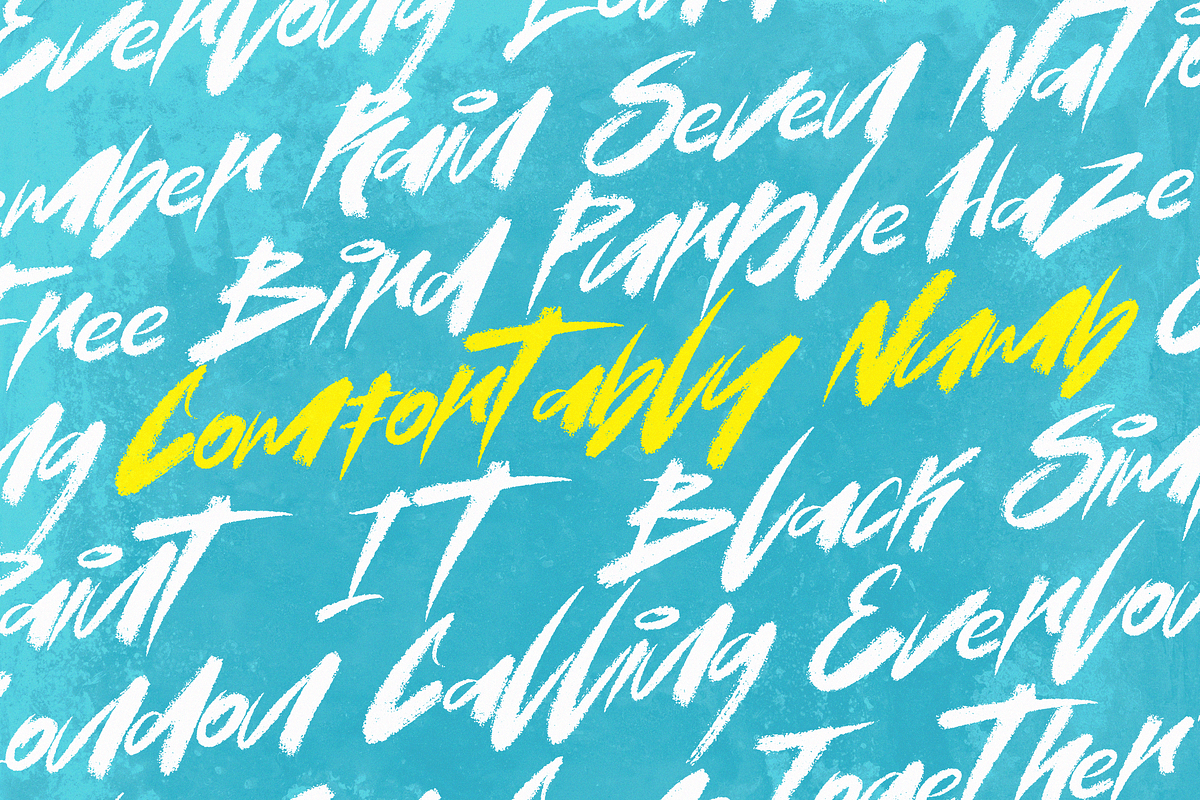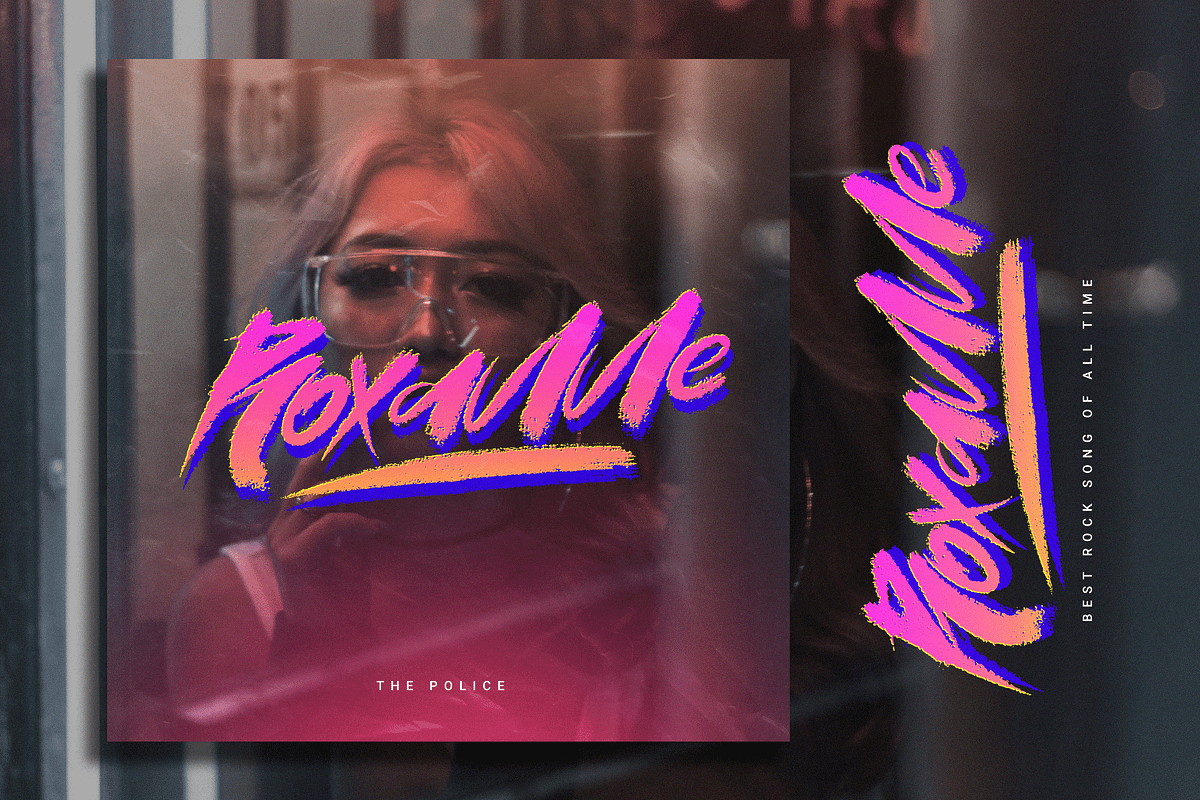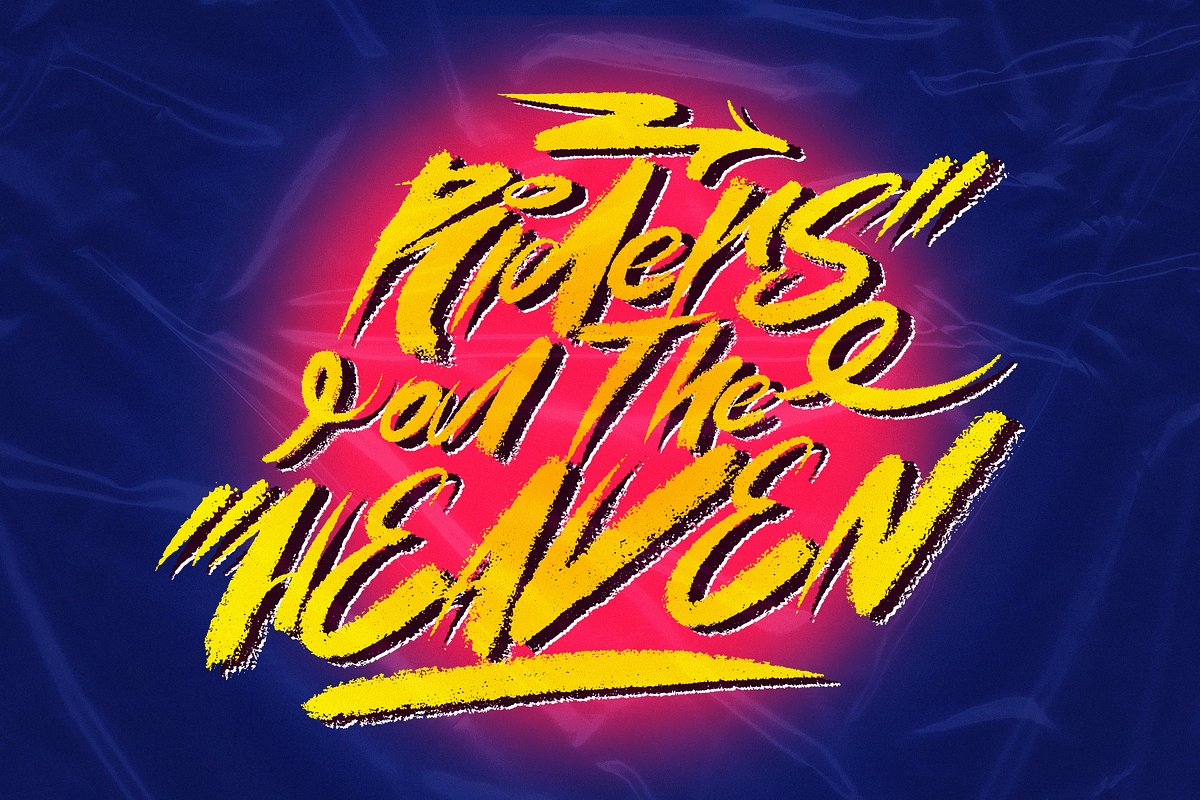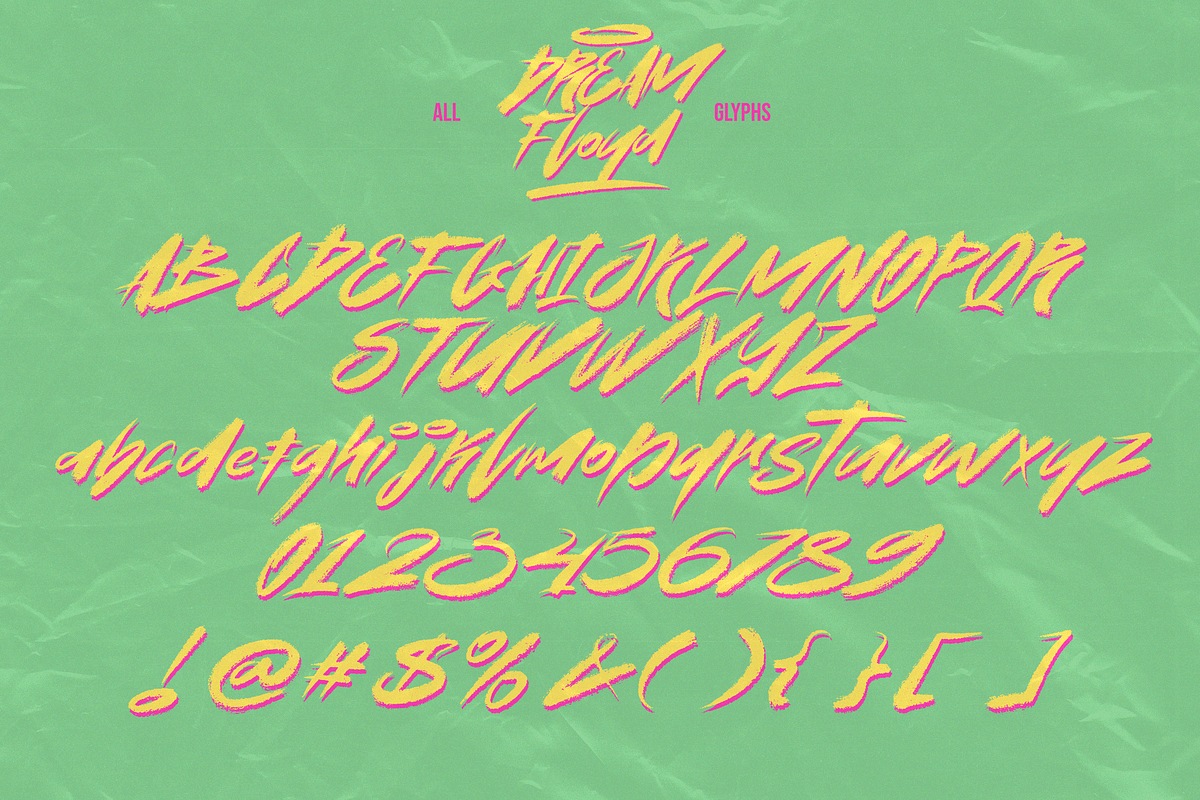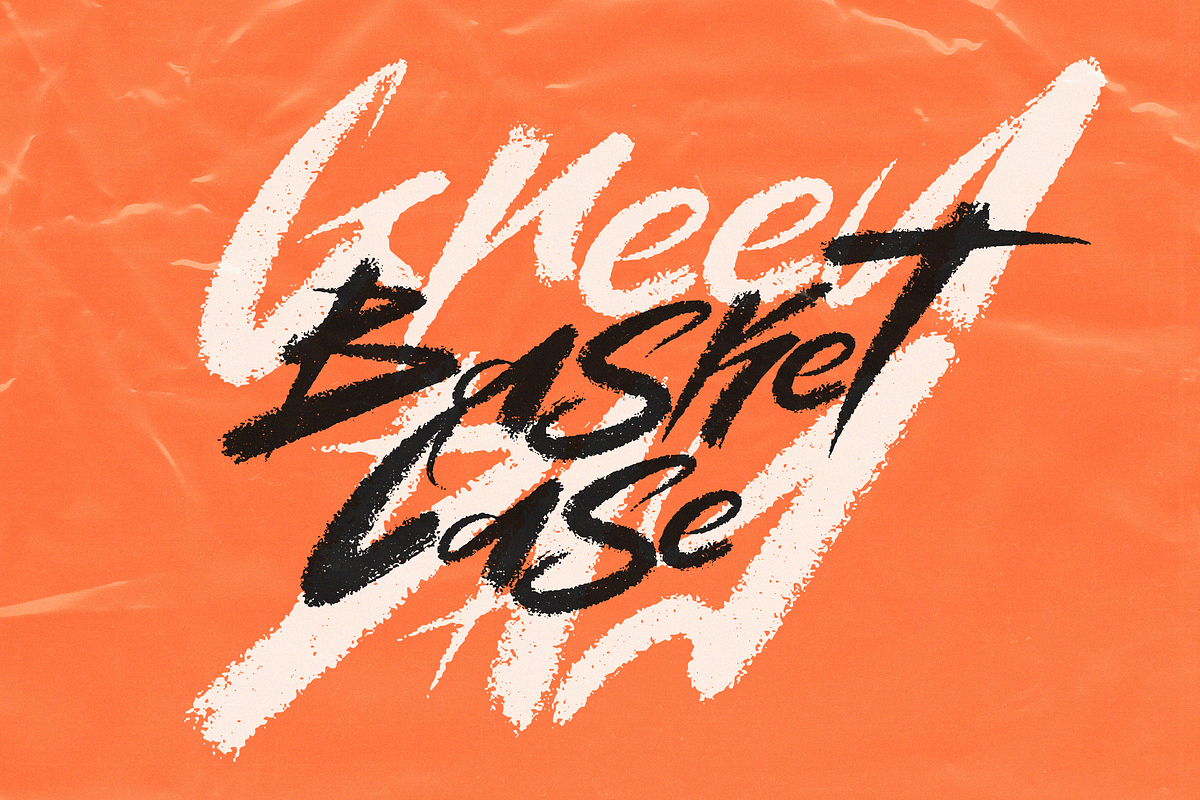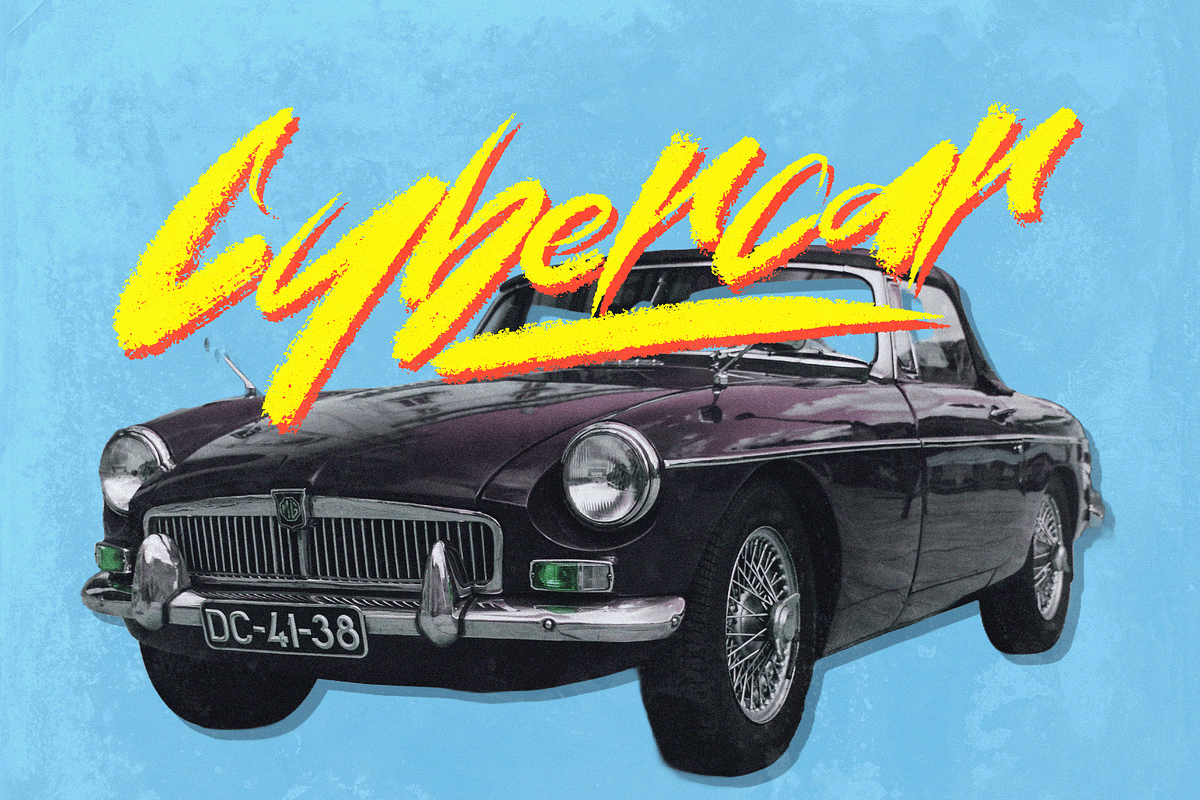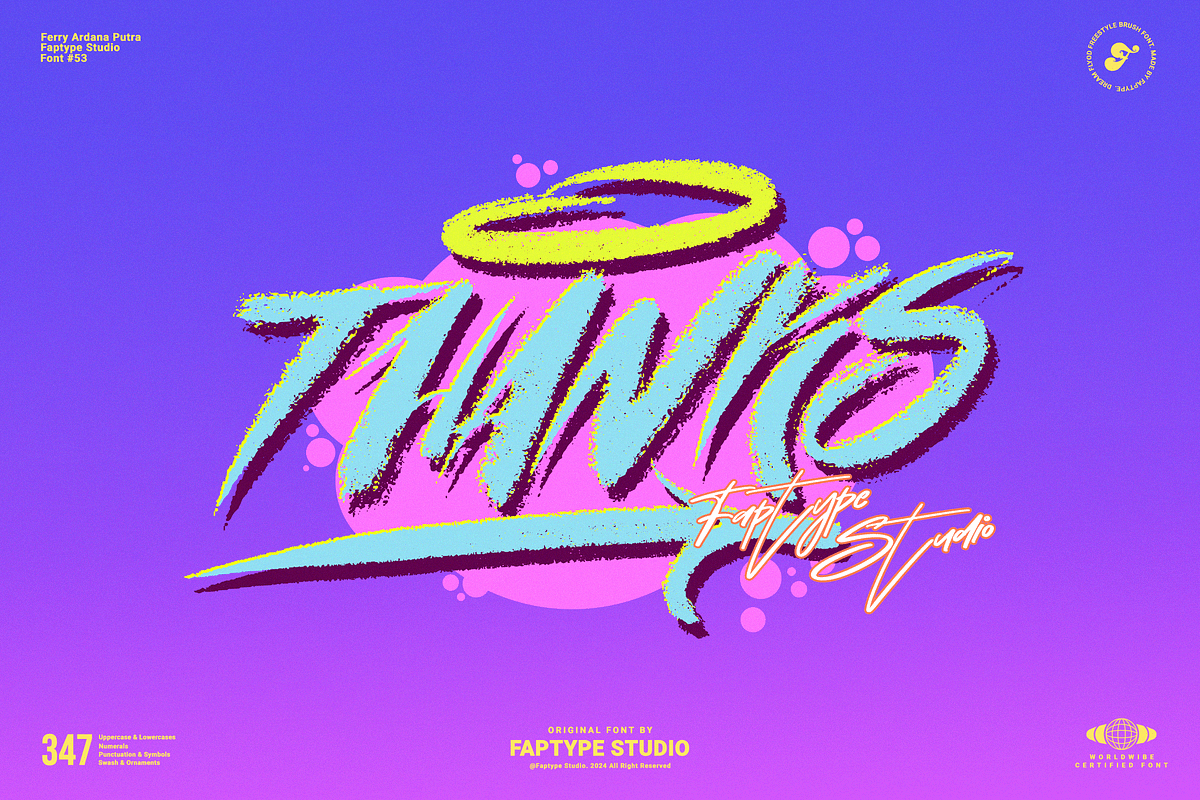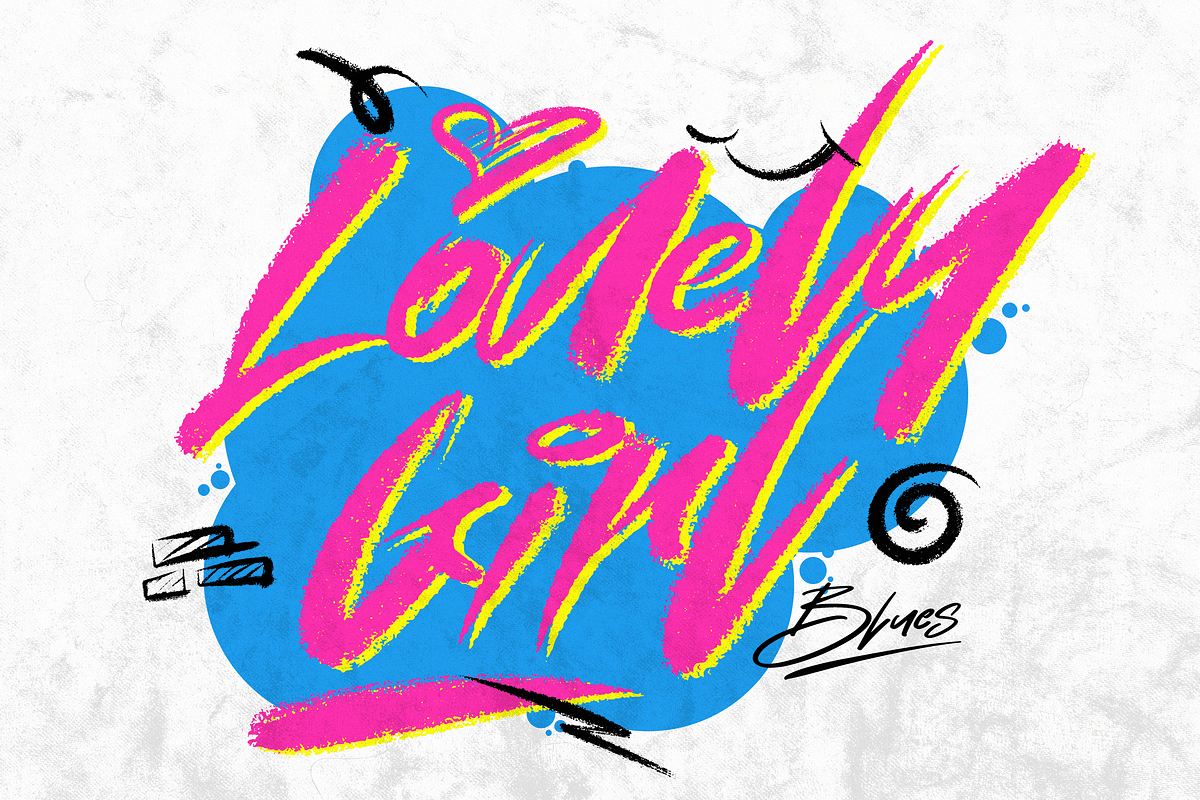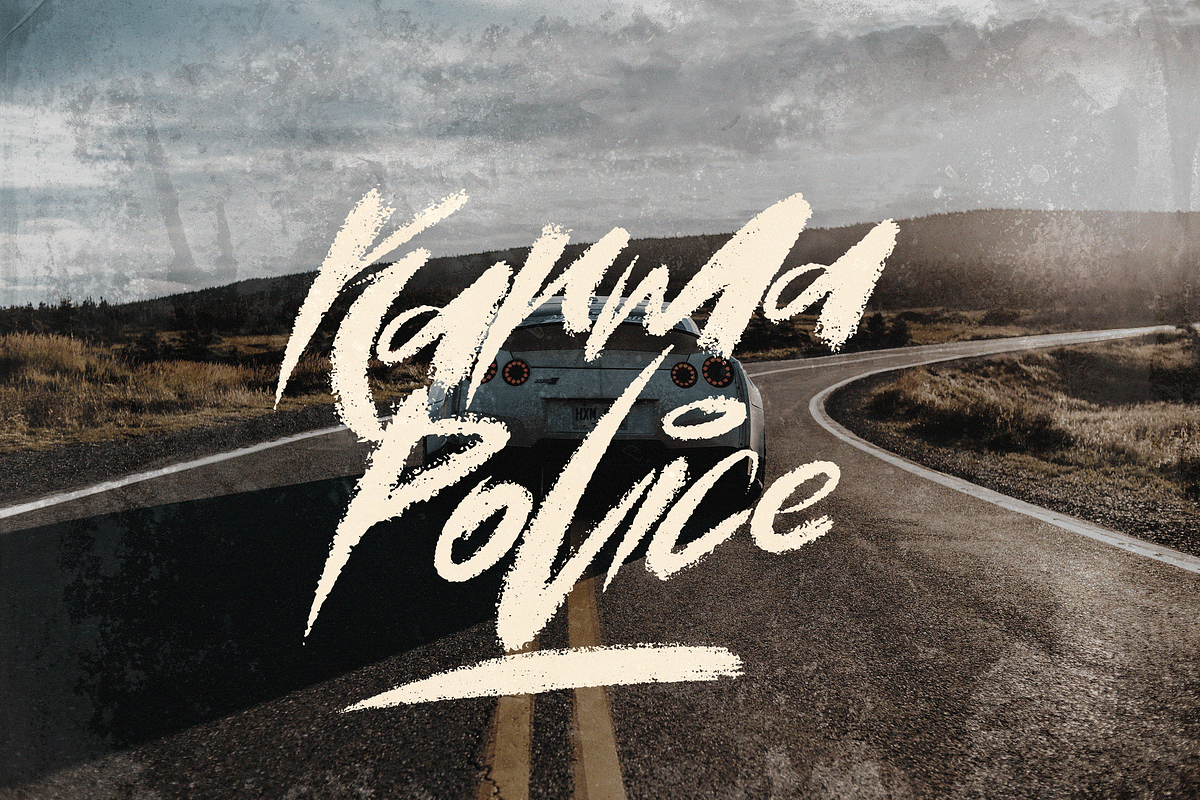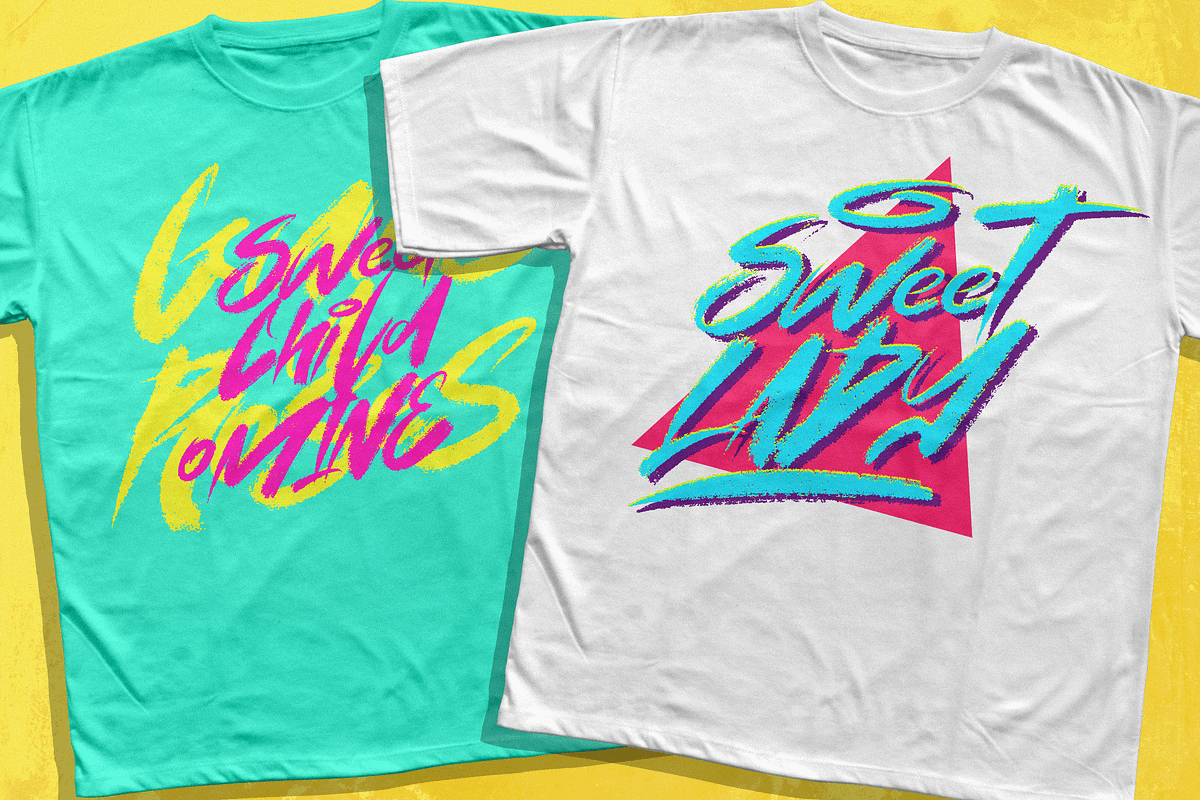
Dream Floyd | Retro Brush Font
Introducing Dream Floyd, a captivating retro brush font that brings the spirit of vintage design into modern creative projects. With its bold, expressive strokes and nostalgic charm, Dream Floyd evokes the artistic flair of the past, while offering a versatile and dynamic look for today's designs. Perfect for creating standout logos, eye-catching posters, packaging, and unique branding, this font merges retro aesthetics with a fresh, energetic feel.
Dream Floyd is ideal for those looking to add a distinctive, handcrafted touch to their work, with its textured brush style delivering authenticity and character. Whether you're working on a creative campaign or a personal project, Dream Floyd provides the visual impact needed to make your designs unforgettable. Elevate your projects with the timeless appeal of Dream Floyd—where retro meets contemporary creativity.
Dream Floyd:
- A full set of upper & lowercase characters
- Multilingual language support
- +347 Glyph
- 113 Brush Swashes